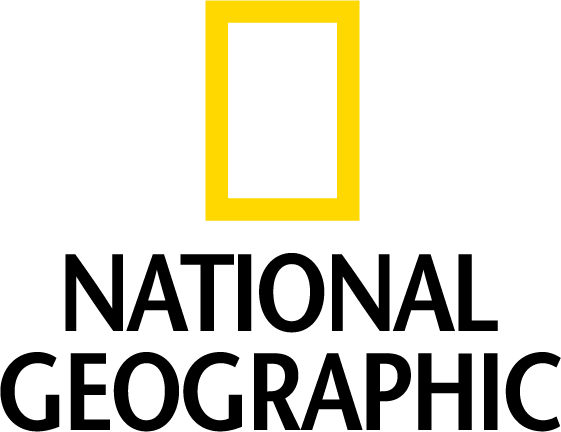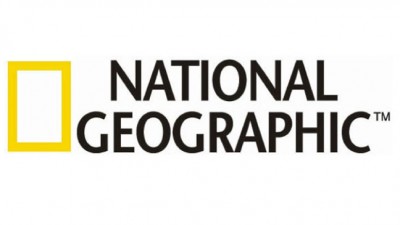
See more ideas about fonts, dafont, typography fonts. Geograph is a contemporary, geometric sans serif originally designed for national geographic.
Geograph’s suite of alternate letterforms enable flexible typographic textures and tones.
National geographic font dafont. Geograph, a font family comprised of 24 styles, is the lynchpin to the brand’s fresh look. Dec 26, 2016 at 14:43. Alo kk, ada yang tau jenis font yang dipake tulisan ini?
The ebcdic x ca character ibm 1147 is missing after transfer with zowe explorer with encoding 1147 soft hyphen x ad not rendered by chromium issue 923 zowe vscode extension for zowe github. We visited the historic wellsprings of geometric and grotesk typefaces, drawing upon idealism of futura and the pragmatism of super grotesk. Previous discussions have suggested that this is a proprietary font derived from
What font is national geographic? Total views 63 (older stats) items. Get facts, photos, and travel tips for chichen itza, a world heritage site in mexico, from national geographic.
Geograph, a font family comprised of 24 styles, is the lynchpin to the brand’s fresh look. Colors of the national geographic logo. The earliest inscriptions found which are identifiably maya date to the 3rd century bce in san bartolo, guatemala.
Geograph, a font family comprised of 24 styles, is the lynchpin to the brand’s fresh look. The mayan script (glyphs or hieroglyphs) is the writing system of the maya civilization of mesoamerica, the only mesoamerican writing system that has been substantially deciphered. The geograph fonts are currently licensed for the exclusive use of national geographic.
The closest font you can get for the g… read more what font does national geographic use. Bold monday check out the logical minisite showcasing all its advanced features and technical info for accessing the icons t co szjl1uzclz t co as4drji2ea. Jadi, ini lah adien gunarta.
National logo in new hindi font in png format. October 25, 2021 post a comment. Geograph, a font family comprised of 24 styles, is the lynchpin to the brand’s fresh look.
Fakta ini sendiri terungkap melalui utas yang dibagikan oleh akun twitter @ariqsy, di mana dia menjelaskan bahwa font upakarti yang dipakai oleh pssi untuk membuat logo itu merupakan milik sahabatnya. Geograph, a font family comprised of 24 styles, is the lynchpin to the brand’s fresh look. Complete family of 6 fonts: